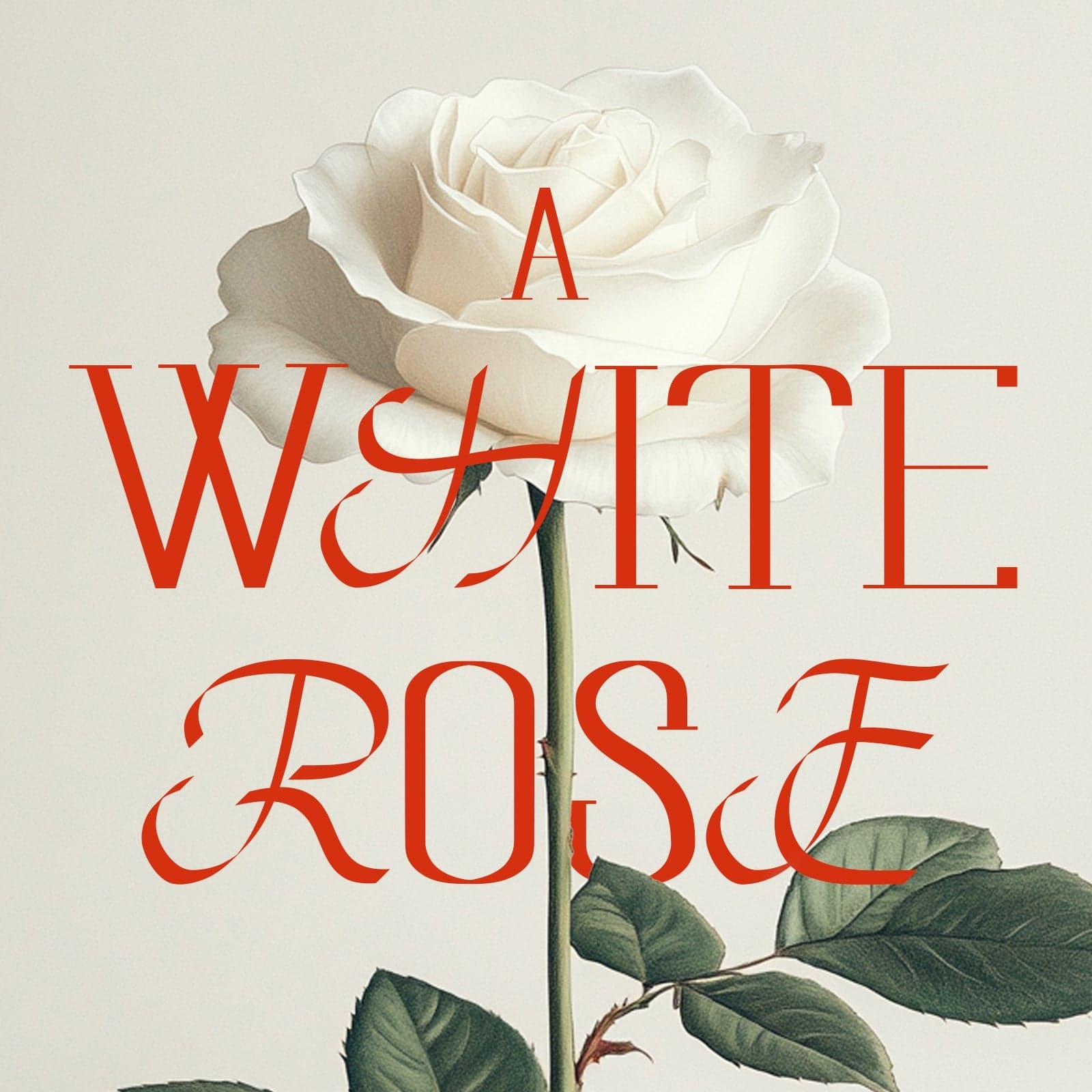
<p>Senada is an elegant and sophisticated typeface that seamlessly blends classic serif forms with flowing script elements. The combination creates a harmonious balance between structure and artistry, making it perfect for designs that require a touch of refinement and creativity.</p> <p>With its clean, geometric serifs and graceful, calligraphic swashes, Senada exudes timeless beauty and versatility. Ideal for branding, editorial projects, packaging, or event invitations, this typeface captures attention with its unique pairing of boldness and delicacy. Whether used in bold headlines or subtle accents, Senada adds a distinct charm and a sense of cohesion to any visual project.</p>